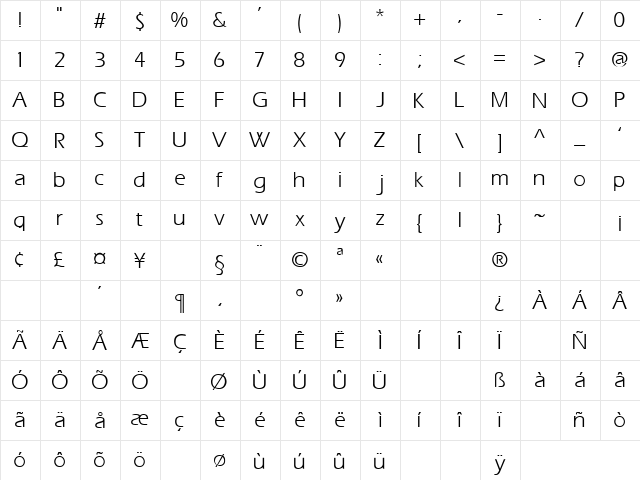
Presence 2 Regular
Design Context for Presence 2 Typeface
Presence 2 takes a measured approach to typography — its balanced proportions and neutral character make it a reliable workhorse for both digital and print work.